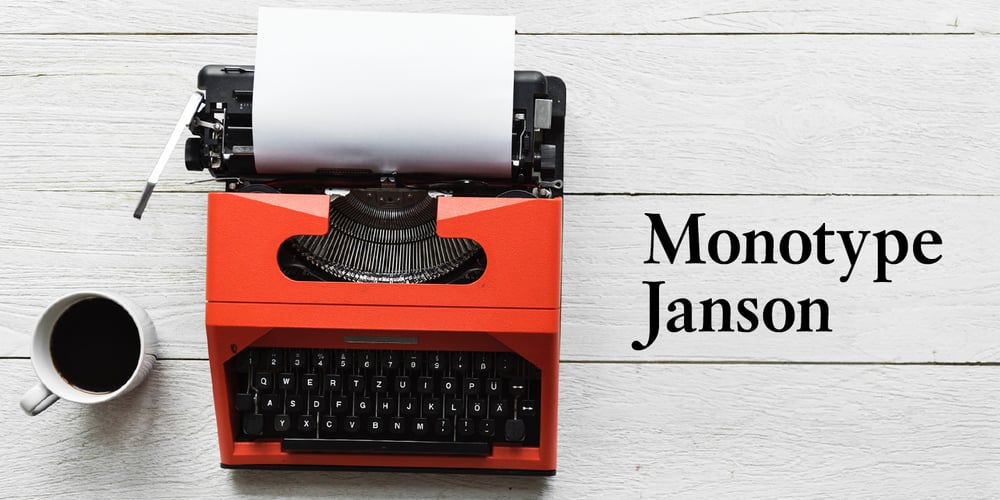
Monotype Janson
Monotype Janson font
Monotype Janson Font Family was designed by Patricia Saunders, Nicholas (Miklós) Tótfalusi Kis, Robin Nicholas and published by Monotype. Monotype Janson contains 4 styles and family package options. The Monotype Janson font family is based on types originally cut by the Hungarian punch-cutter, Nicolas Kis circa 1690. Named after Anton Janson, a Dutch printer. The original matrices came into the hands of the Stempel foundry in Germany in 1919. New type was cast and proofs made; these were used as the source for Monotype’s version of Janson. The original hand cut Janson types have a number of small design irregularities which give the typeface its unique charm. These have been carefully incorporated into the new version. The overall effect is of even color and an easy readability that makes Monotype Janson most at home in book and publishing work.